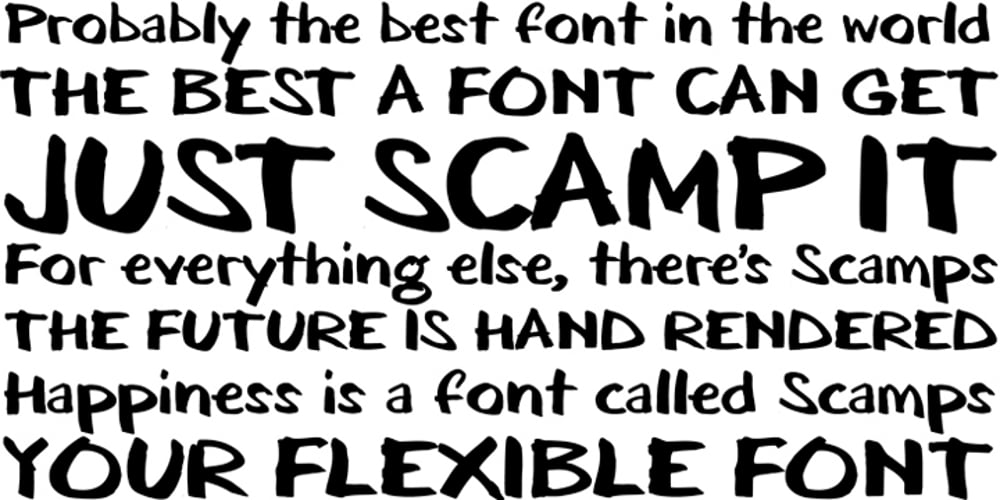
Scamps Font Family was designed by Mark Astle and published by Spark Creative. Scamps contains 4 styles and family package options. I designed this font because it didn’t exist – it’s based on hand rendered type created for black and white line marker scamps used in the advertising industry. I use it that way and it’s saved me a LOT of hand-rendering time over the years. Of course, Scamps works as an informal marker script in its own right too. I’ll be interested to see what you do with it.